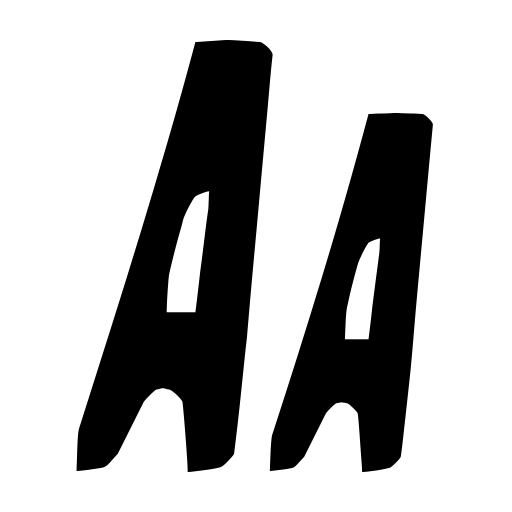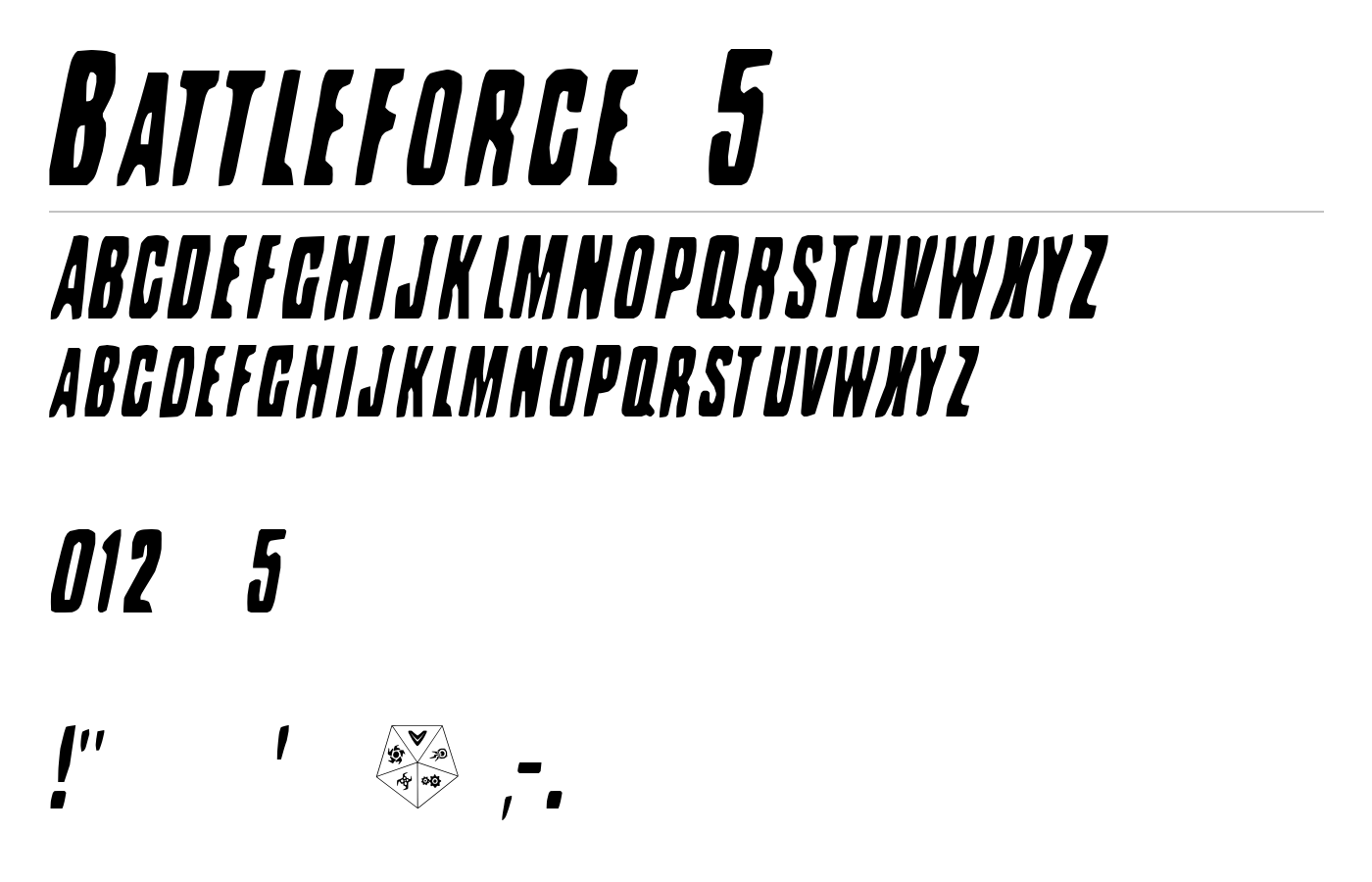
Battleforce 5 is a bold, condensed sans serif font with a dynamic, angular design that projects strength and energy. Its tall, slightly slanted letterforms and sharp edges give it a futuristic and action-packed feel, making it ideal for logos, headlines, and branding in gaming, sports, or adventure contexts. This font stands out in display uses where impact and a bold personality are essential.
Battleforce 5 Font
About Battleforce 5 Font